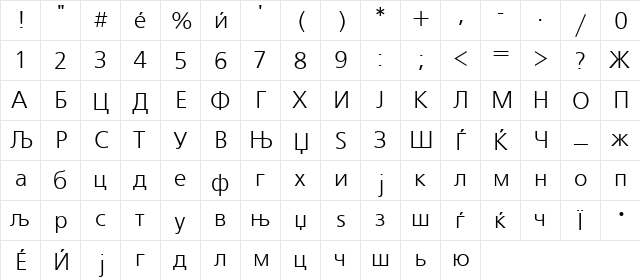
X_FreeSet Normal
Design Context for X_FreeSet Typeface
X_FreeSet takes a measured approach to typography — its balanced proportions and neutral character make it a reliable workhorse for both digital and print work.